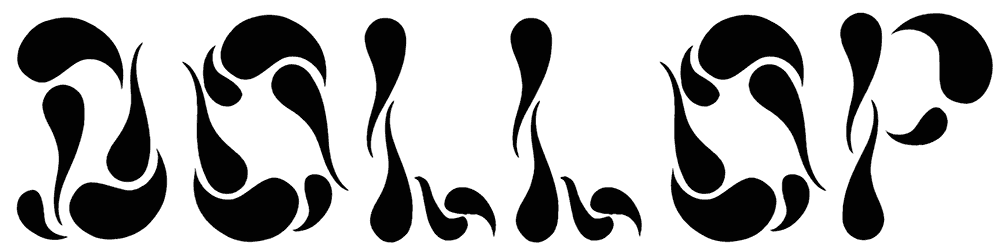
Dollop Font
Are you looking for a hot font to set your designs on fire? So add some spice to your work with the Dollop font. This water font can give a bright effect to your design projects and is compatible with any type of design.
So if you’re into rough and hot stuff, use Dollop for logo design, packaging, video games, apparel, and branding. The attractive appearance of this font, which does not support numbers, can push the boundaries of your creativity.
Dollop plays with positive and negative space in a playful manor.
Designed by: K. Bishop Massey